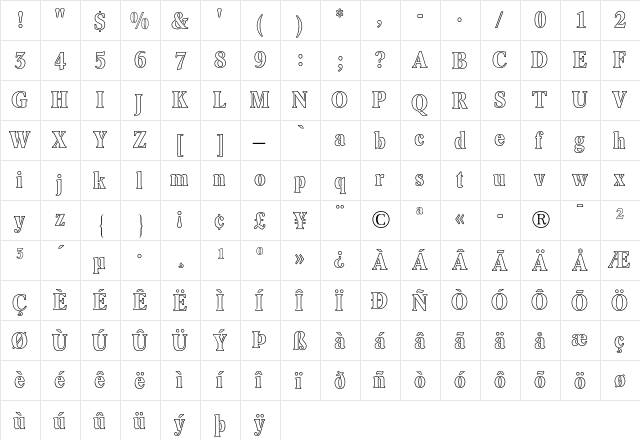
Concorde BE Bold Condensed Outline
Design Context for Concorde BE Typeface
Concorde BE brings ornamental detail and strong personality to headlines and identities, where visual impact matters more than quiet functionality. The heavy weight commands attention and anchors typographic hierarchies.
Font Pairing: Pair with a clean neutral sans-serif for body copy to let Concorde BE's character lead without overwhelming the composition.
Pro Tip: Use Concorde BE exclusively at display sizes — it was designed to be seen, not read at length. Let a neutral companion handle body copy.